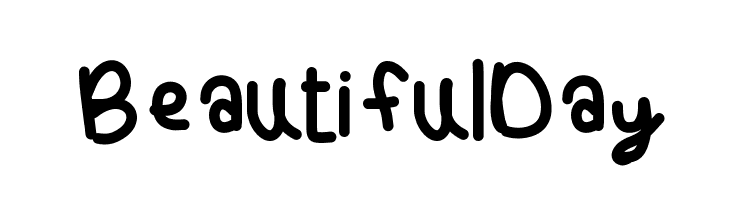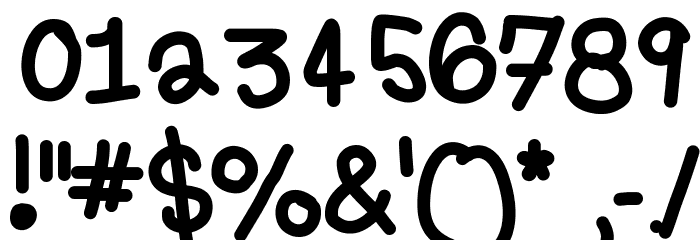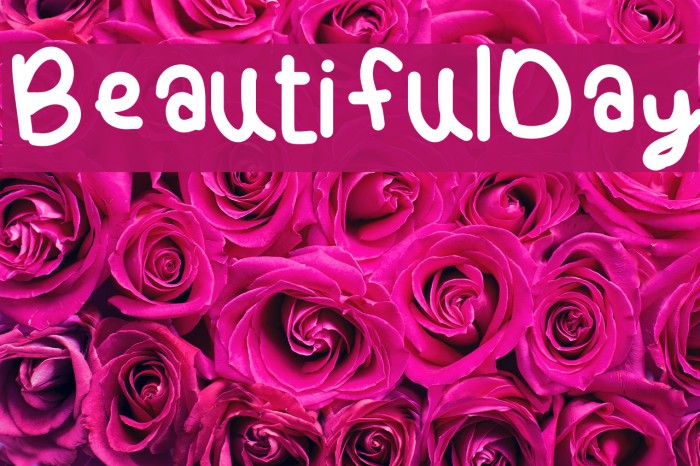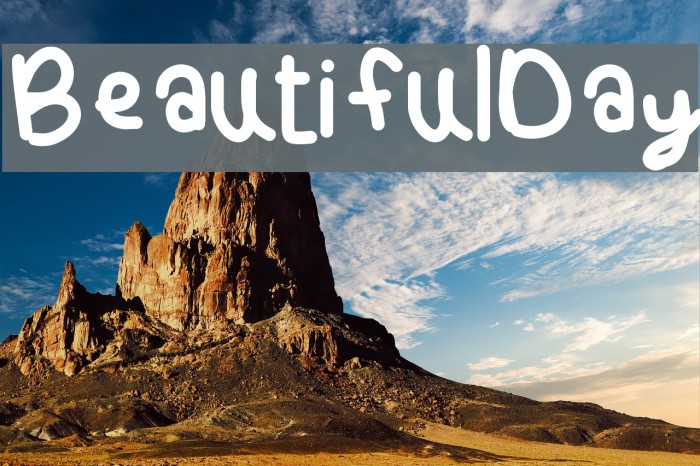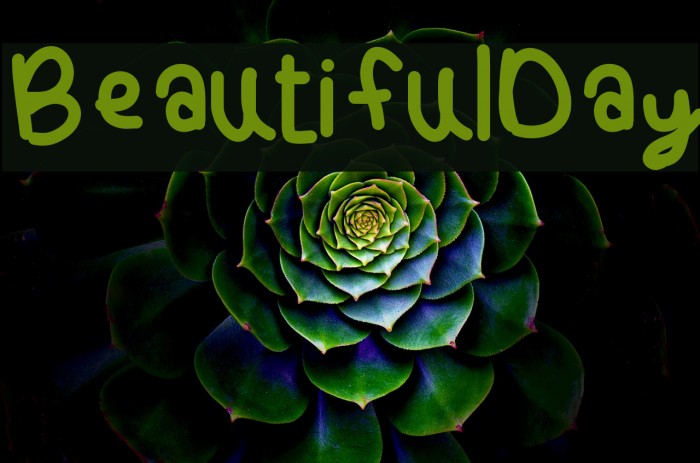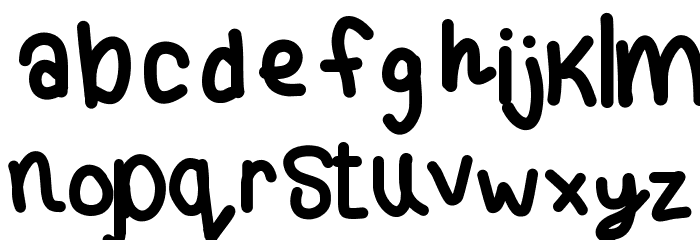
BeautifulDay Font
BeautifulDay Description
This playful and whimsical font features a handwritten style with a casual and friendly appearance. The letters are slightly irregular, giving it a personal touch that mimics natural handwriting. The strokes are smooth and rounded, contributing to its approachable and informal aesthetic. It includes a full set of uppercase and lowercase letters, numbers, and a variety of special characters, making it versatile for different uses. The font's organic flow and charming character make it ideal for projects that require a personal or creative touch.
A playful handwritten font with a casual and friendly style from Handwritten fonts.
- Proposed Projects: Ideal for greeting cards, children's books, personal blogs, and creative branding.
- Overall Style: Casual, Playful
- Use Case: Headlines, Informal text, Creative projects